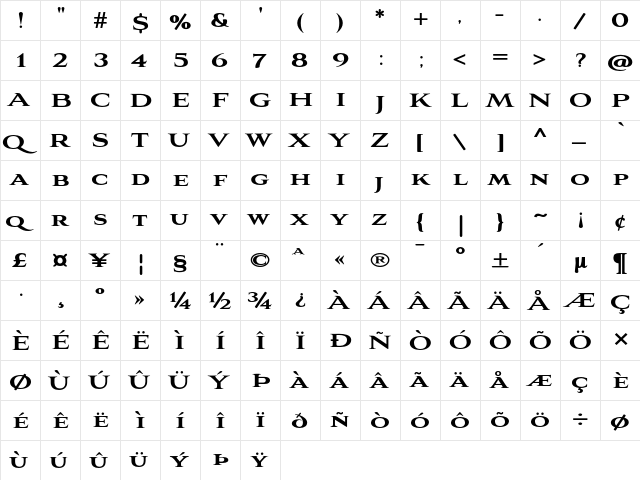
Aviano Black Black
| Foundry | Jeremy Dooley |
Design Context for Aviano Black Typeface
Aviano Black offers clean, dependable letterforms without strong stylistic allegiance, making it a practical choice for designers who need flexibility.